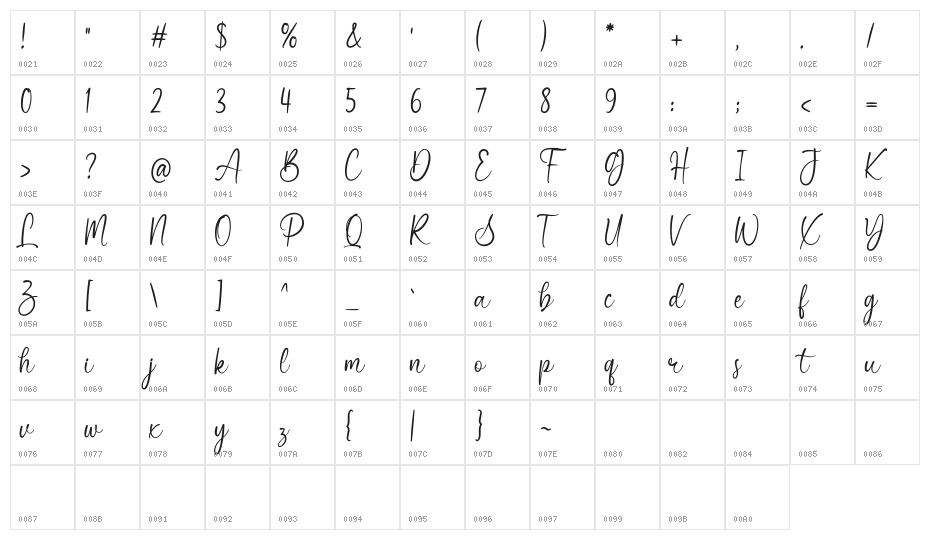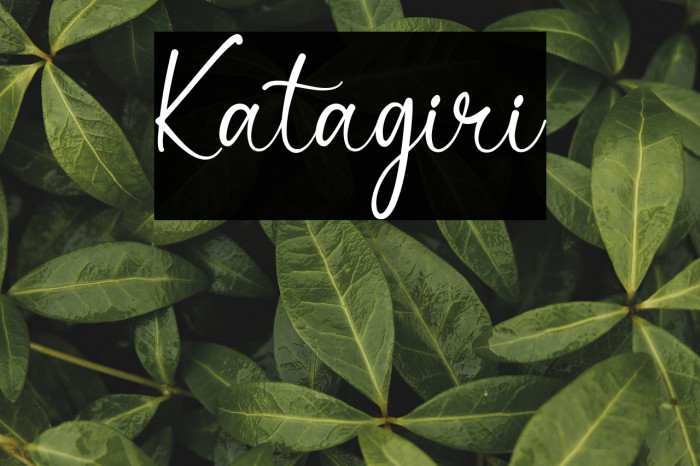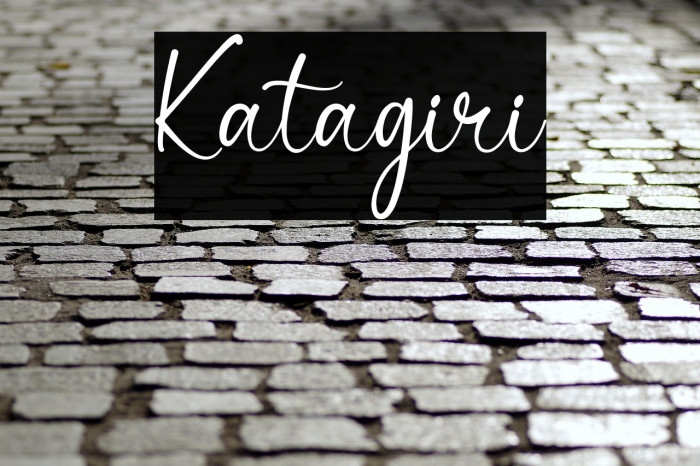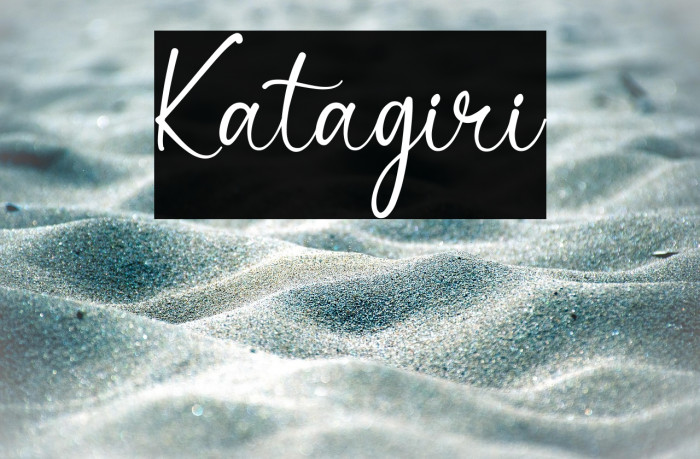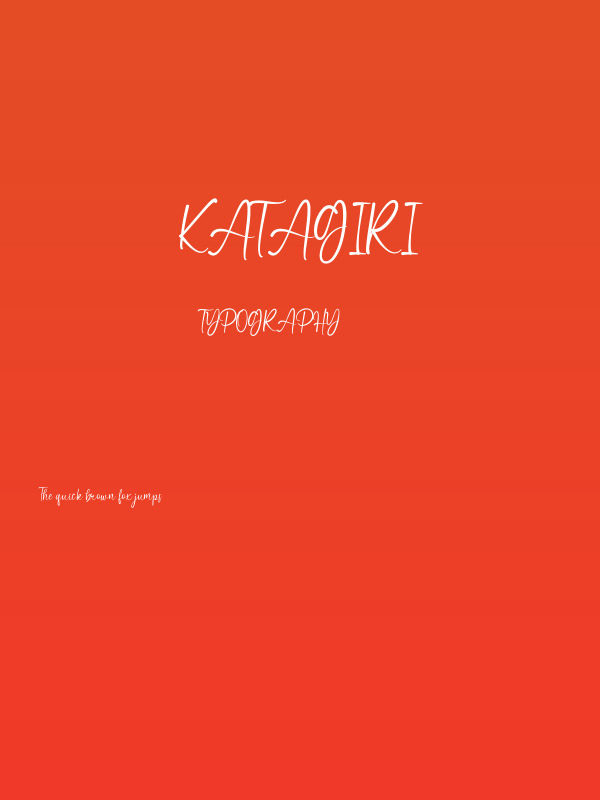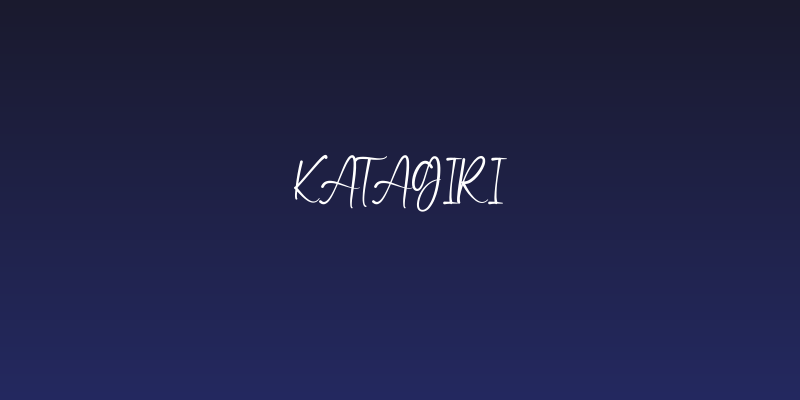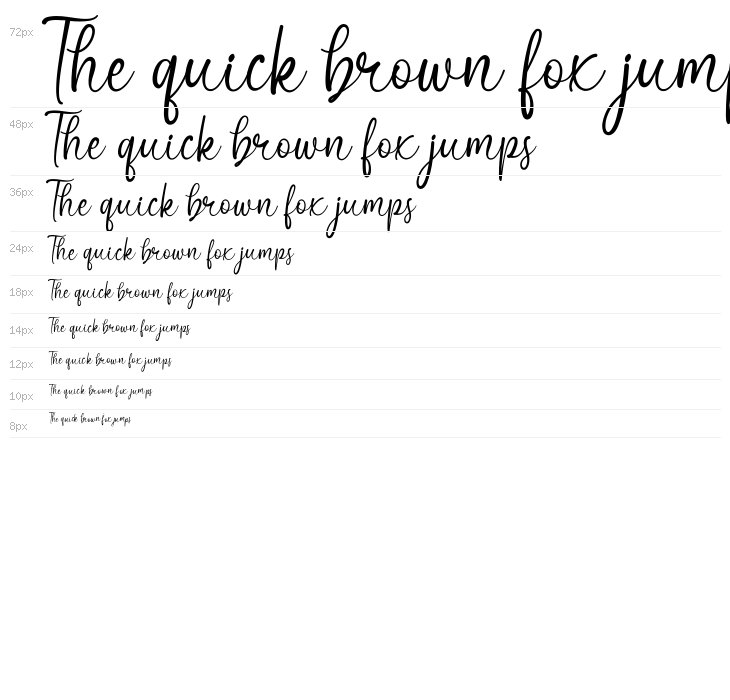
Katagiri Font
Katagiri Description
This font features an elegant, flowing script style that mimics the fluidity of natural handwriting. The characters are connected in a cursive manner, with smooth curves and loops that give it a sophisticated and artistic appearance. The uppercase letters are tall and graceful, while the lowercase letters maintain a consistent height, adding to the overall harmony of the design. The numerals and special characters are crafted with the same attention to detail, ensuring a cohesive look across all elements. This font is perfect for projects that require a touch of elegance and personal flair.
| Overall Style | Elegant, Artistic |
| Proposed Projects | Ideal for wedding invitations, greeting cards, branding, and elegant packaging designs. |